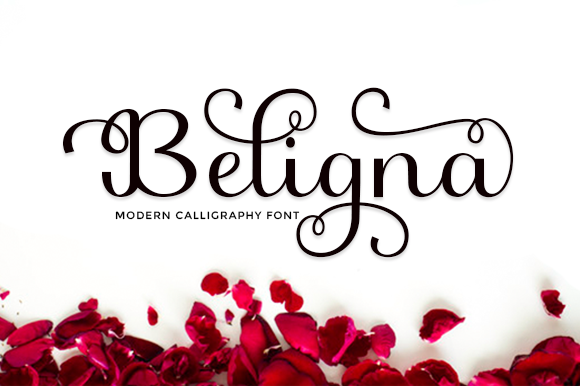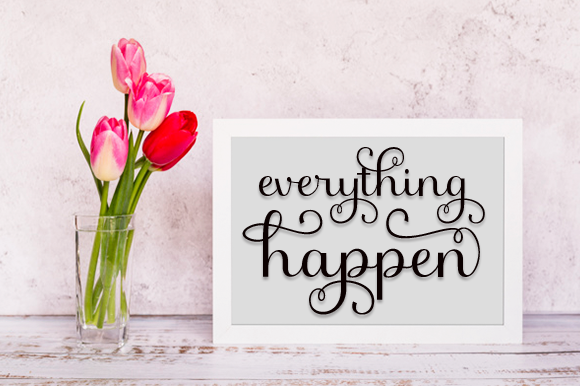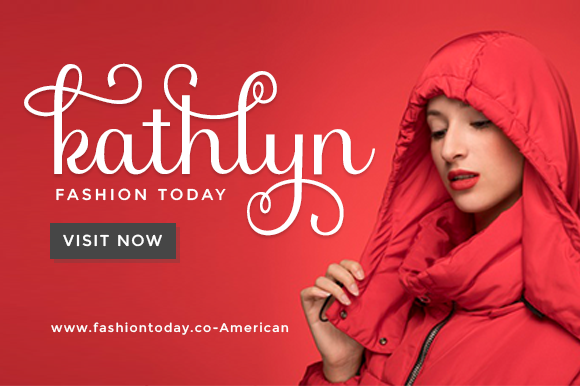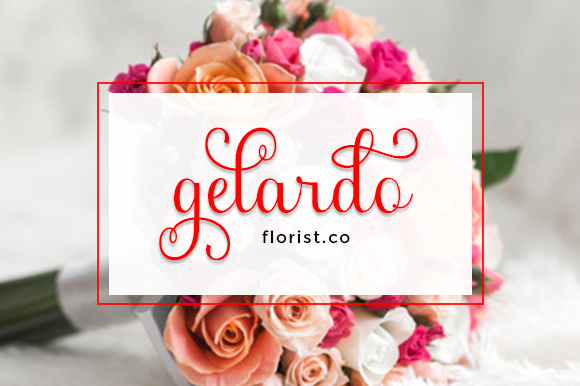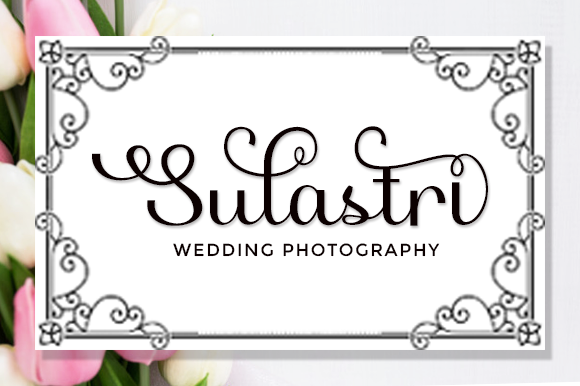
Beligna  Font
About Beligna  Font
Beligna feels equally charming and elegant. This stunning handwritten font is a stylish homage to classic calligraphy and will take your project to the next level!